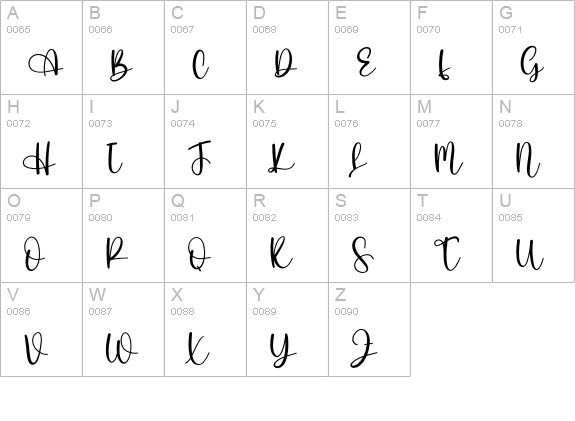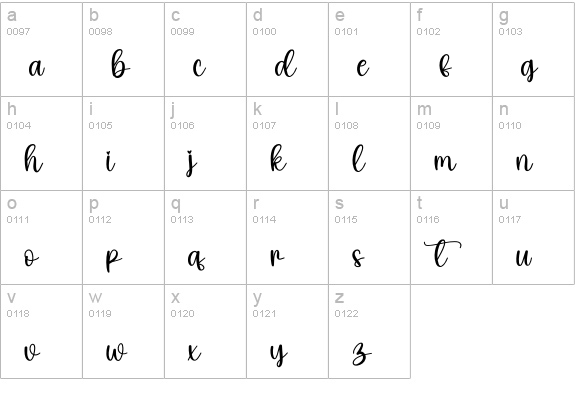
Love Lony Font Details
Love Lony is a free for personal use font in the Script > Handwritten category, designed by scratchones. It has been downloaded 33 times and is available for Windows, Mac and Linux.
Love Lony font is a charming and whimsical typeface that exudes a sense of warmth and affection. Its playful curves and elegant letterforms make it perfect for adding a touch of romance to any design project. Whether you're creating wedding invitations, greeting cards, or love letters, Love Lony font will surely capture the hearts of your audience.